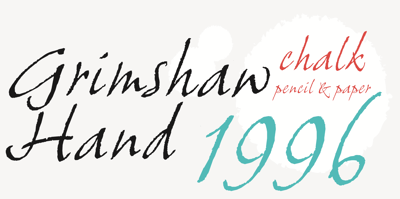
ITC Grimshaw Hand
ITC Grimshaw Hand font
ITC Grimshaw Hand Font Family was designed by Phill Grimshaw and published by ITC. ITC Grimshaw Hand contains 1 styles and family package options. ITC Grimshaw Hand is based on the handwriting of its British designer, Phill Grimshaw. Warm and lively, this typeface has the look of spontaneous handwriting with a little extra panache. Note the jaunty k, the swooping f, the simply stylish s, and the absolutely zingy cap Q and R. Grimshaw designed this face in 1995, at a time when he was also playing the guitar and mandolin. Handwriting fonts give an air of intimacy to the graphic design of advertising pieces, packaging, invitations, greeting cards – and ITC Grimshaw Hand has the touch of sweet music in its enthusiastic strokes.